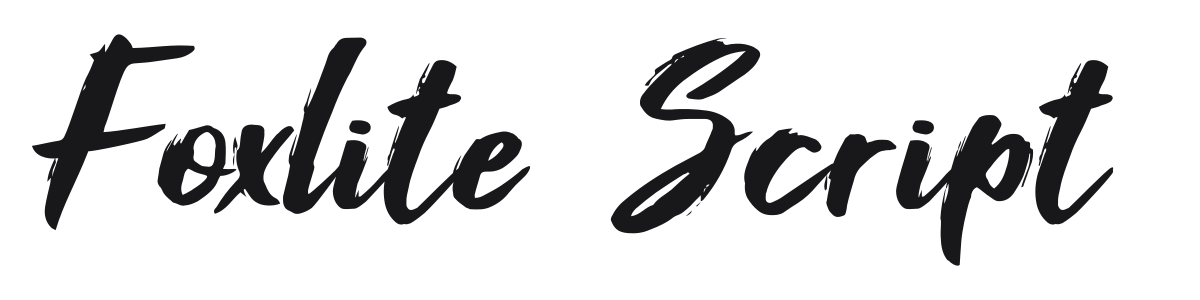
Foxlite Script
Foxlite Script is a bold brush script from Khurasan with thick, sweeping strokes that carry real energy and movement. The letterforms feel loose and expressive without losing legibility, like confident hand-lettering done in a single pass with a loaded brush. Built for headlines, posters, and branding where you want something that feels spontaneous and physical rather than digitally precise.